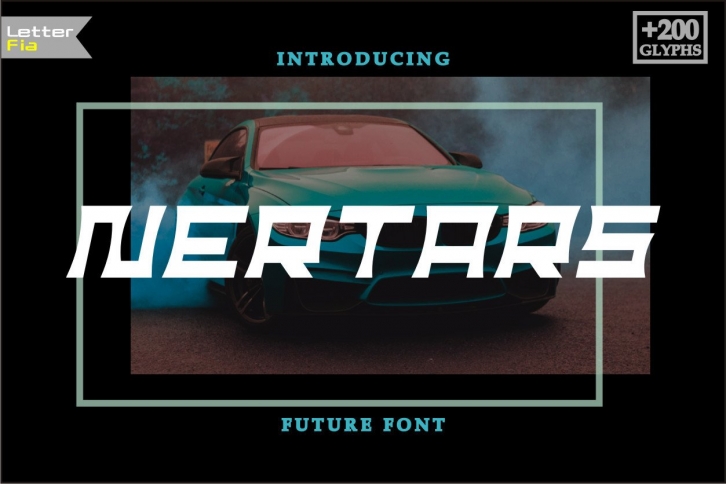
Nertars is a bold, futuristic styled display font. It works great on a variety of designs that require an assertive, robotic vibe. Add it confidently to your projects, and you will love the results.